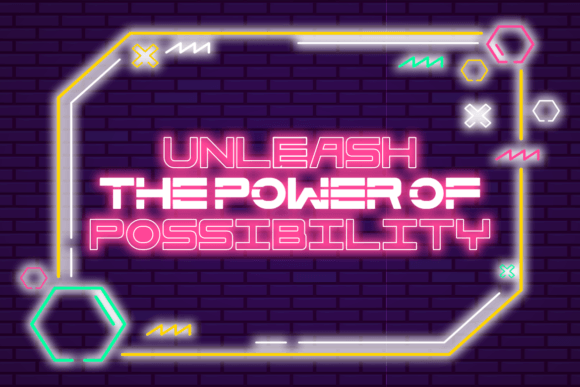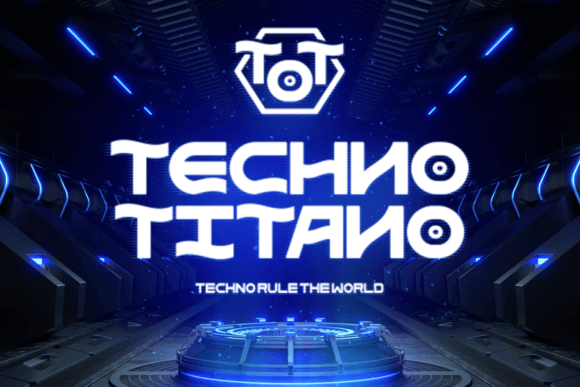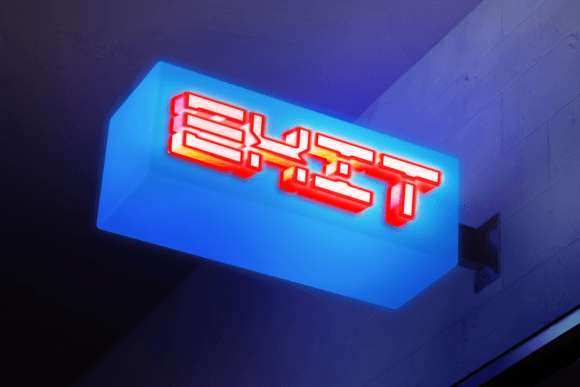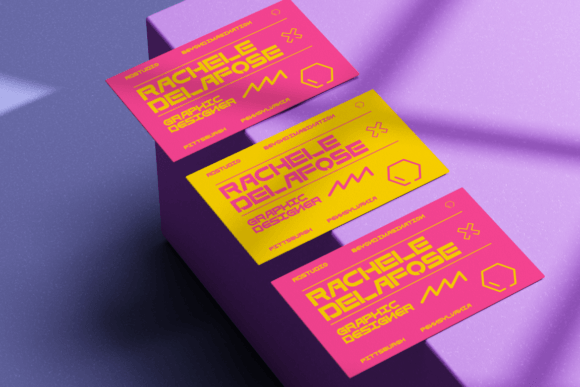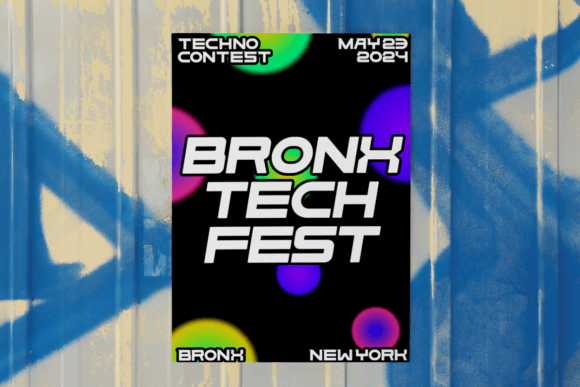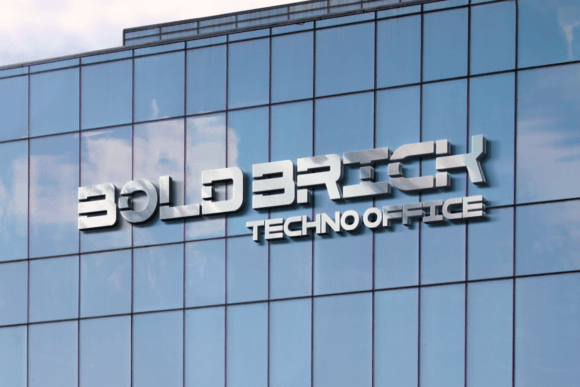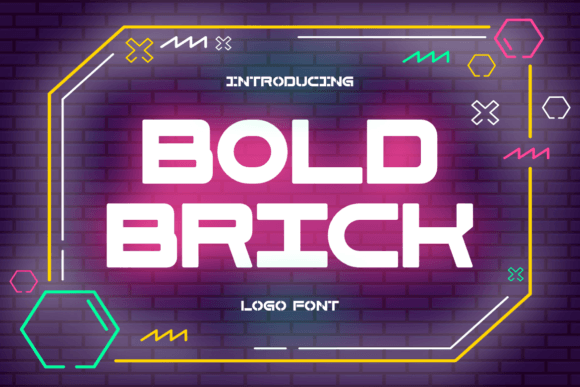
Introducing Bold Brick – Logo Font: Revolutionizing Typography for the Modern Creator
In the ever-evolving world of design, typography plays a pivotal role in conveying messages, expressing creativity, and capturing the essence of a brand. For creators seeking to make a bold statement, the choice of font is crucial. This is where Bold Brick – Logo Font comes into play, a cutting-edge display typeface that is redefining modern typography. With its robust lines, impactful presence, and futuristic motifs, Bold Brick is the perfect choice for designers and crafters looking to elevate their projects.
A Font Inspired by the Future
Bold Brick draws its inspiration from sci-fi aesthetics and futuristic designs, making it a standout in the realm of typography. Its modern character is crafted to resonate with the contemporary visual landscape, ensuring that your designs are not only seen but also felt. Whether you’re working on sports branding, tech startups, or any project that demands attention, Bold Brick offers the perfect blend of innovation and versatility.
Unparalleled Flexibility for Diverse Applications
One of the key features of Bold Brick is its adaptability. This font is not limited to a specific style or medium; instead, it transcends traditional typography to deliver an innovative look suitable for a wide range of applications. From logo creation and packaging design to dynamic poster artistry, Bold Brick ensures that your message stands out. Its flexibility makes it an ideal choice for various projects, including:
- Logo Creation: Make a lasting impression with a bold and memorable logo that captures the essence of your brand.
- Packaging Design: Elevate your product packaging with a modern and eye-catching design that stands out on store shelves.
- Dynamic Poster Artistry: Create visually stunning posters that demand attention and leave a lasting impact.
Crafting Invitations, Book Titles, and Magazine Layouts with Bold Brick
BOLD Brick’s contemporary character makes it an excellent choice for projects that require a touch of modernity and sophistication. For instance, when it comes to crafting invitations, this font can add an element of luxury and elegance, ensuring that your event or announcement leaves a lasting impression. Similarly, for children’s book titles, Bold Brick can add a playful yet bold edge, making the book cover instantly appealing to young readers. In magazine layouts, this font can be used to create headlines that pop, adding a dynamic and modern feel to the publication.
Why Choose Bold Brick?
There are several reasons why Bold Brick – Logo Font should be your go-to choice for your next design project:
- Modern Aesthetic: Embody modernity with a font that is inspired by futuristic motifs and sci-fi aesthetics.
- Versatility: Use Bold Brick across various applications, from logos and packaging to posters and digital media.
- Impactful Presence: Ensure your message is not just seen but felt with a font that demands attention.
- Contemporary Character: Add an edge to your designs with a font that is tailored to the contemporary visual landscape.
In conclusion, Bold Brick – Logo Font is a game-changer for designers and crafters looking to make a bold statement with their typography. Its modern aesthetic, versatility, and impactful presence make it the perfect choice for a wide range of applications. Whether you’re working on a sports brand, tech startup, or any project that demands attention, Bold Brick ensures that your message stands out in today’s visual landscape. With its unparalleled flexibility and contemporary character, this font is set to revolutionize the way we think about typography.